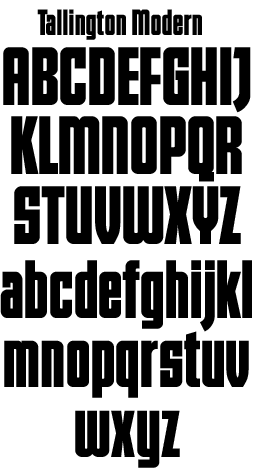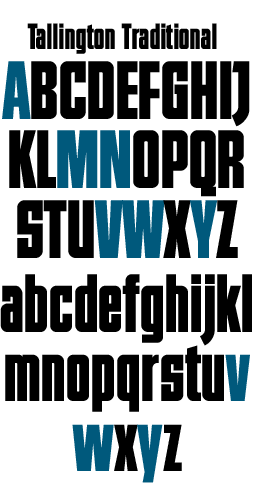
LHF Tallington
Arthur Vanson says of his new font: "Tallington
is a stylised version of gas-pipe lettering; the trusty old stalwart
of many a signwriter. Always a favourite for condensing long words
into a short spaces; it is also useful for creating dense bold areas
to counter light airy elements in producing dynamic graphical effects
with lettering."
Concerning the name He chose, Arthur writes: "After climbing
for three miles at 1 in 200, the East Coast Main Line passes Great
Ponton and High Dyke before breasting Stoke Summit and beginning
the long run down Stoke Bank at 1 in 178. This is the racing ground
where all of the London & North Eastern Railway speed records
were set. Mallard's 126 mph World Speed Record for Steam Traction
was achieved at a point just beyond Essendine and nearing Tallington.
What this has to do with lettering, I have no idea. My only excuse
is that I find the word quite pleasing, it starts with TALL (fairly
appropriate) and I'm rather fond of railways." |